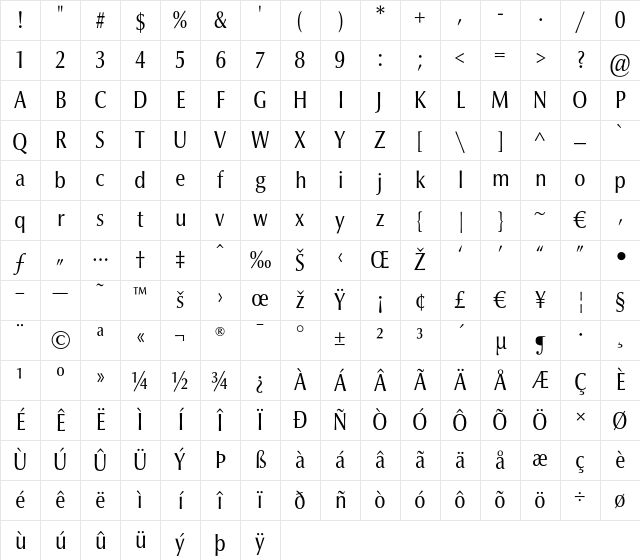
Optima nova LT is a composed and adaptable typeface that performs quietly and consistently across a wide range of design contexts. Its slender proportions lend an understated elegance to any composition. Its narrow stance lets it pack a punch even in space-constrained designs.